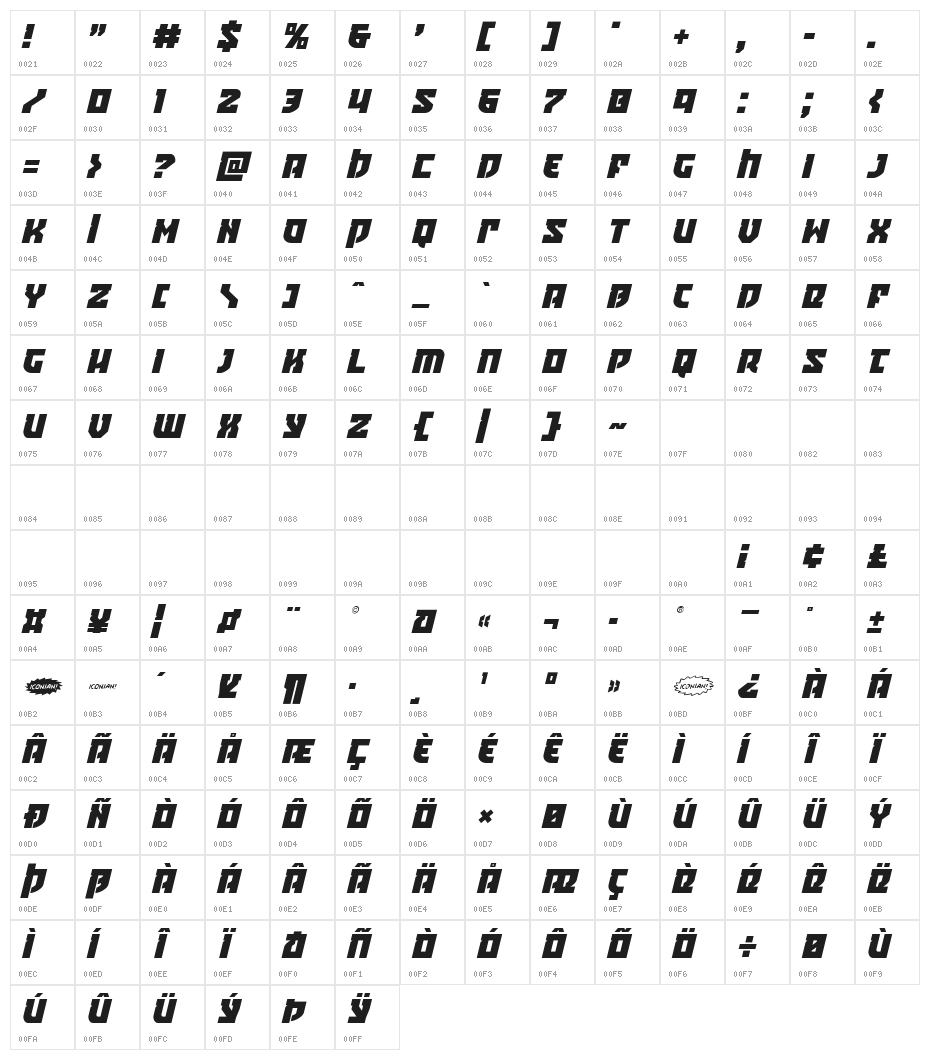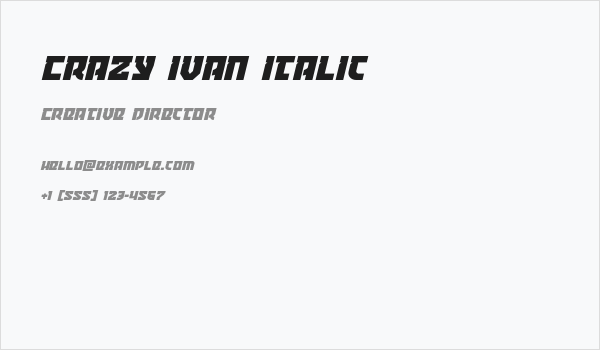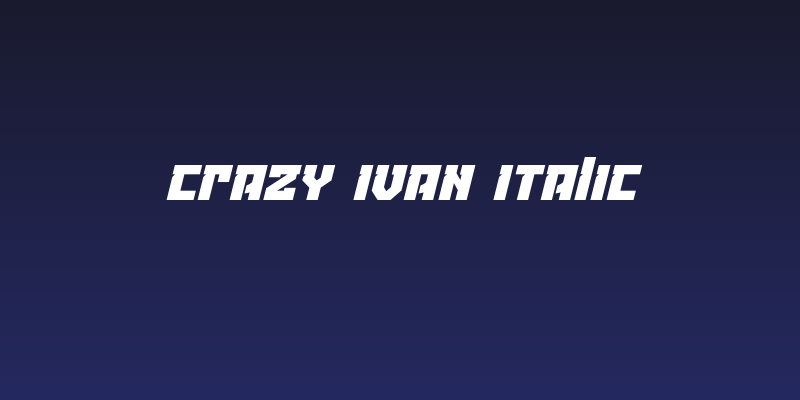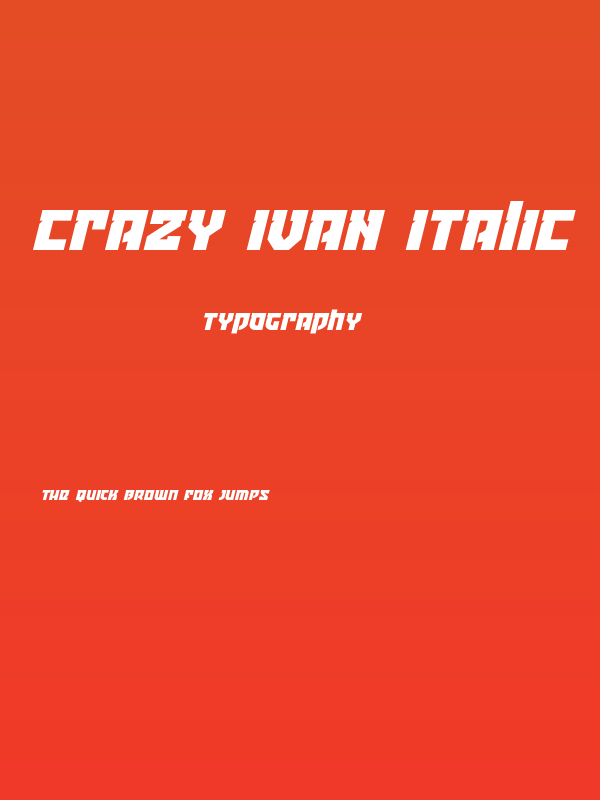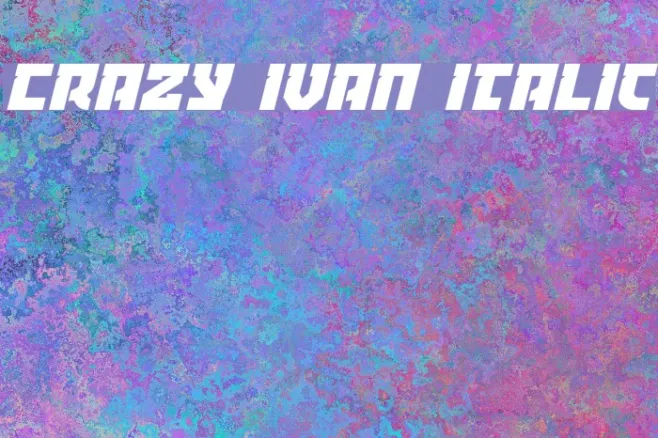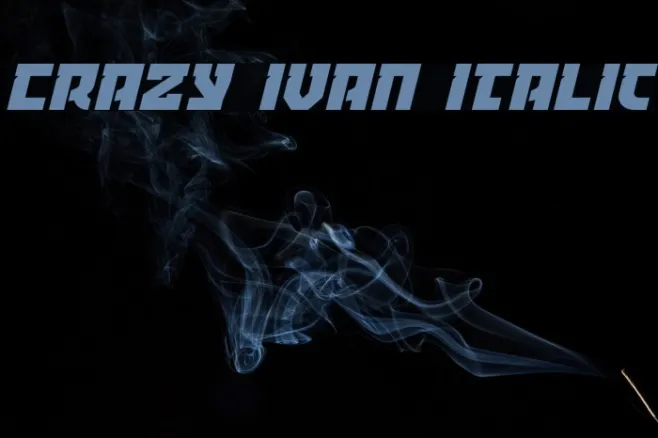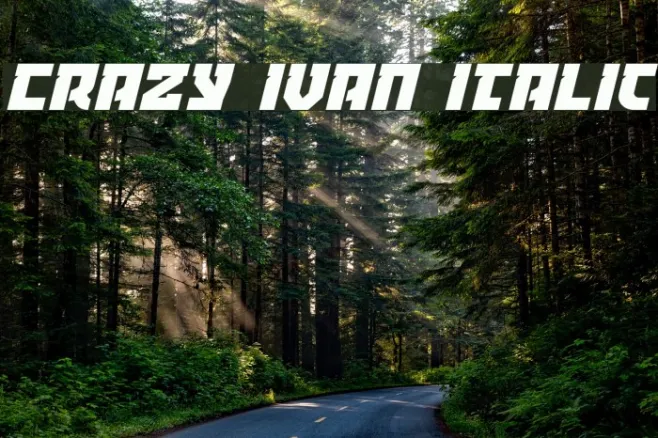
Crazy Ivan Italic Font
Crazy Ivan Italic Description
This font features a bold and dynamic design with a strong geometric influence. The characters are sharply angled, giving them a futuristic and aggressive appearance. The italic style adds a sense of motion and speed, making it ideal for projects that require a sense of urgency or modernity. The uppercase and lowercase letters maintain a consistent style, with the numbers and special characters following suit. The overall look is cohesive and impactful, suitable for attention-grabbing headlines or branding that demands a bold statement.
| Proposed Projects | Ideal for sports branding, video game titles, action movie posters, and dynamic advertising campaigns. |